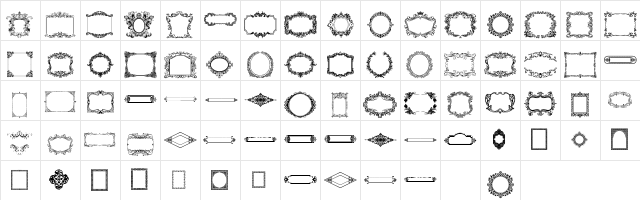
Complete Vintage Frames Regular glyph index. Displaying only characters natively supported by Vintage Frames Regular font.
Vintage Frames wears its vintage influences proudly, with letterforms that recall mid-century signage, classic packaging, and nostalgia-driven design.
Font Pairing: Combine Vintage Frames with a simple slab or neutral sans - period-accurate companions reinforce the vintage feel without competing for attention.
Pro Tip: Lean into Vintage Frames's period character by pairing it with aged paper textures, muted colour palettes, and vintage illustration styles.